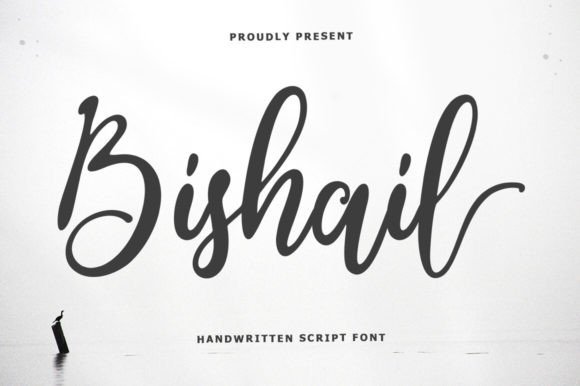
Bishail Script Font for Makers and Designers
There is a specific kind of quiet satisfaction that comes when you finally place the last element on a candle label mockup. I had been wrestling with a design for a boutique soy wax line, trying to balance rustic charm with modern elegance. The sans serif body text was clean, but the header felt cold. That was the moment I loaded Bishail. As soon as those Script Handwritten curves hit the canvas, the entire vibe shifted. This isn't just another set of digital Fonts; it is a tool that breathes life into static designs. Bishail Script are beautiful and modern font options that instantly elevate the perceived value of handmade goods, looking amazing on wedding invitations, thank you cards, Mother's day cards, quotes, greeting cards, logos, business cards, and any other design project where personality matters.
Creating Elegant Wedding Invitations with Bishail Script
When working with couples planning their big day, the invitation suite sets the tone for the entire event. I recently tested Bishail on a minimalist wedding invitation layout, pairing it with a lightweight geometric sans serif. The result was striking. Because Script Handwritten styles can sometimes feel too casual or too formal, finding one that sits perfectly in the middle is rare. These Fonts strike that delicate balance. The strokes have a natural flow, mimicking the pressure variations of a real brush pen, which adds an organic warmth to digital prints. For wedding stationery, this means the names of the couple pop with sophistication without feeling stiff. Whether you are designing save-the-dates, day-of signage, or menu cards, Bishail Script are beautiful and modern font choices that look amazing on wedding invitations, ensuring your clients feel their special day is treated with artistic care.
Designing Heartfelt Greeting Cards and Thank You Notes
In the world of paper goods, emotional connection is everything. A generic typeface rarely conveys the warmth of a handwritten note, but Bishail comes close. I used this typeface for a line of Mother’s Day cards, focusing on short, impactful phrases like "Love You Mom" and "Thank You." The legibility here is key. Many decorative Script Handwritten options sacrifice readability for style, making them frustrating for customers who want to read the message at a glance. With these Fonts, the letterforms remain distinct even at smaller sizes. Bishail Script are beautiful and modern font solutions that look amazing on thank you cards, Mother's day cards, quotes, and greeting cards. When I printed these on textured cardstock, the ink settled into the fibers beautifully, highlighting the subtle swashes and tails of the letters. It turns a simple piece of paper into a keepsake.
Elevating Brand Identity with Logos and Business Cards
Your logo is the face of your business, and for handmade sellers, it needs to communicate authenticity. I revamped a small bakery’s branding using Bishail for their primary logo mark. The fluidity of the Script Handwritten style suggested artisanal quality and homemade care, which was exactly the brand voice they wanted to project. We paired it with a bold, clean sans serif for the tagline to ensure contrast and professional polish. These Fonts are versatile enough to work across various mediums, from embossed business cards to social media headers. Bishail Script are beautiful and modern font assets that look amazing on logos, business cards, and any other design intended to build brand recognition. The consistency of the stroke width allows for easy scaling, meaning the logo remains crisp whether it is stamped on a packaging seal or displayed on a website banner.
Practical Readability Tips for Cutting Machines and Printables
For those of us using Cricut or Silhouette machines, not all script fonts are created equal. Some have disconnected letters or overly complex ligatures that cause weeding nightmares. I put Bishail to the test by cutting vinyl decals for tote bags and mugs. The connectivity between letters is smooth, allowing for single-layer cuts that hold together well during application. However, as with any Script Handwritten style, size matters. I found that these Fonts perform best when used for titles, names, or short phrases rather than long paragraphs. Bishail Script are beautiful and modern font selections that look amazing on quotes and display text, but they are not suited for dense instructional text. If you are creating printable wall art or planner pages, use Bishail for the headers and pair it with a highly readable serif or sans serif for the body content. This ensures your design remains accessible while still retaining its decorative flair.
Maximizing Commercial Use for Shop Packaging and Merchandise
Before launching any new product line, checking the licensing terms is non-negotiable. Fortunately, Bishail is designed with the modern creator in mind. I utilized it for a series of seasonal product tags for a holiday gift shop. The font’s versatility allowed it to work equally well on kraft paper tags for rustic items and glossy stickers for premium beauty products. When selecting Script Handwritten options for commercial use, you need reliability and aesthetic appeal. These Fonts deliver both. Bishail Script are beautiful and modern font tools that look amazing on packaging, merchandise, and promotional materials. By incorporating this typeface into your shop’s visual identity, you create a cohesive look that customers begin to recognize. Whether you are designing shirt graphics, tote bag prints, or digital download templates, the consistent quality of Bishail helps maintain a professional standard across all your offerings.
Ultimately, choosing the right typeface is about more than just aesthetics; it is about communication. Bishail communicates warmth, elegance, and modern creativity. It bridges the gap between traditional calligraphy and contemporary digital design. For makers, sellers, and designers, having a reliable Script Handwritten option in your toolkit is invaluable. These Fonts are not just decorative elements; they are essential components of effective visual storytelling. By understanding where and how to apply Bishail Script are beautiful and modern font characteristics, you can enhance your product presentations, engage your audience more deeply, and create designs that truly resonate. From the first sketch to the final print, let this font be the touch of humanity in your digital creations.